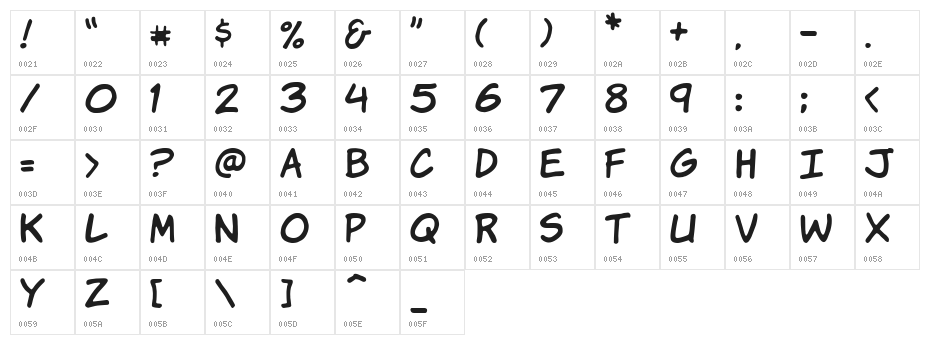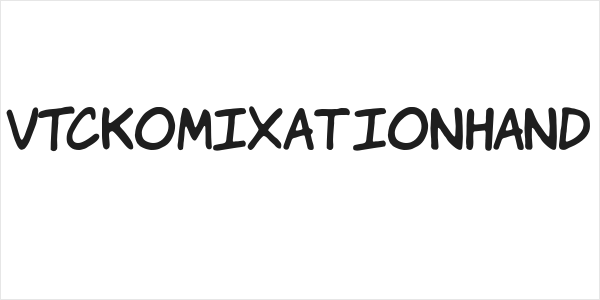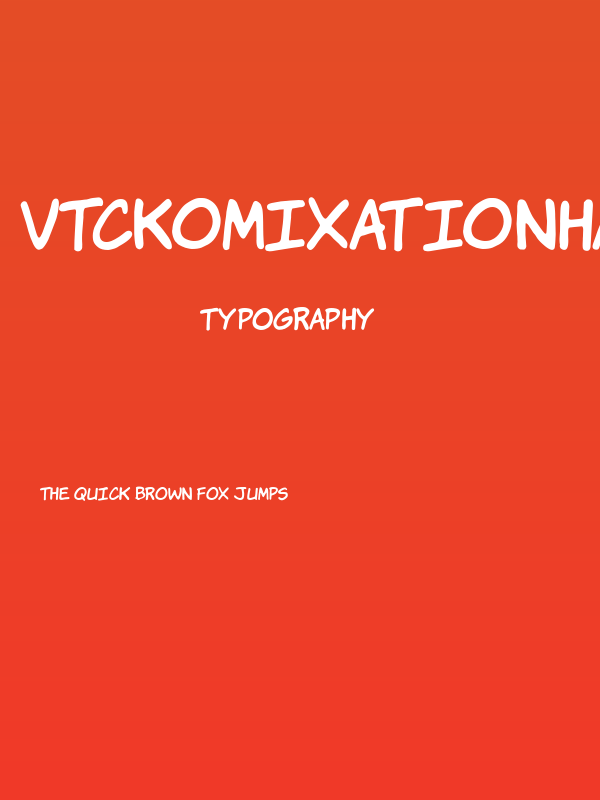
VTCKomixationHand Font
VTCKomixationHand Description
This playful and bold font features a hand-drawn style with a comic-like appearance. The characters are rounded and slightly irregular, giving them a casual and friendly feel. The uppercase and lowercase letters maintain a consistent style, with smooth curves and a slight slant that adds to the dynamic look. The numbers and special characters are equally expressive, making this font suitable for creative and informal projects. Its unique style captures attention and adds a touch of whimsy to any design.
| Overall Style | Playful |
| Proposed Projects | Ideal for comic books, children's books, playful branding, and informal posters. |